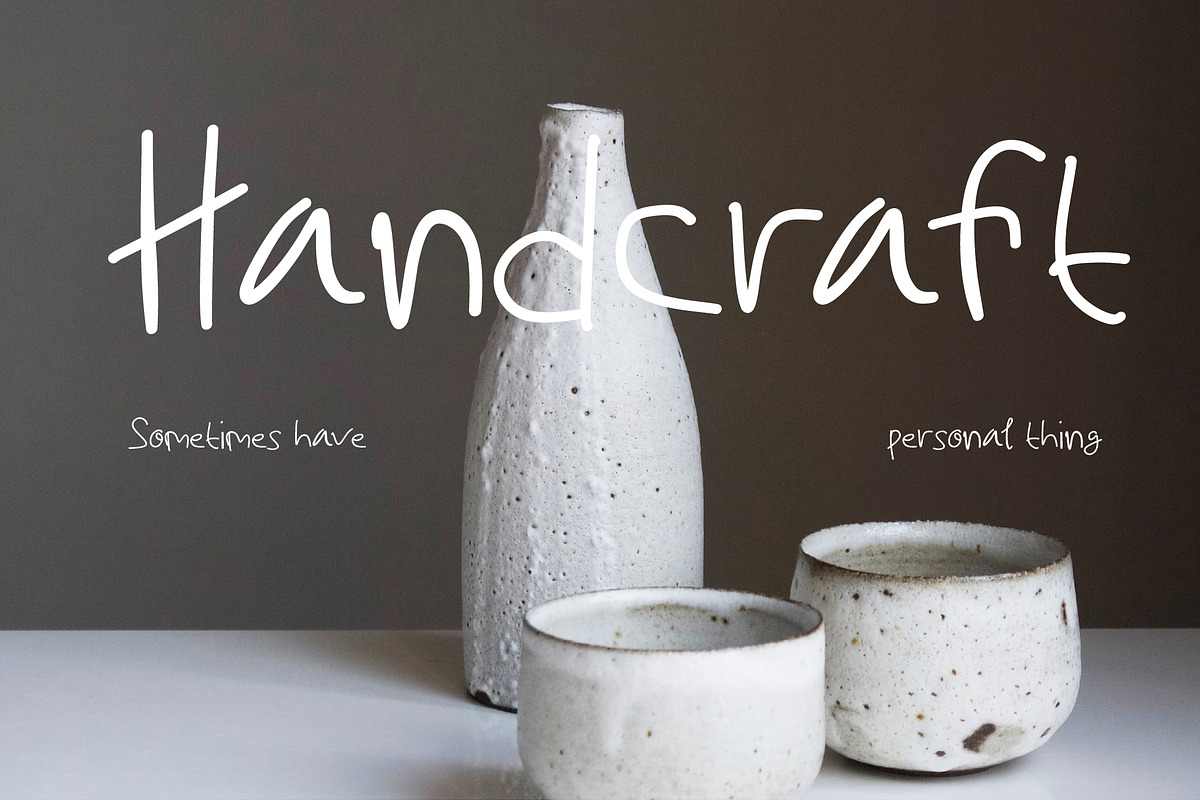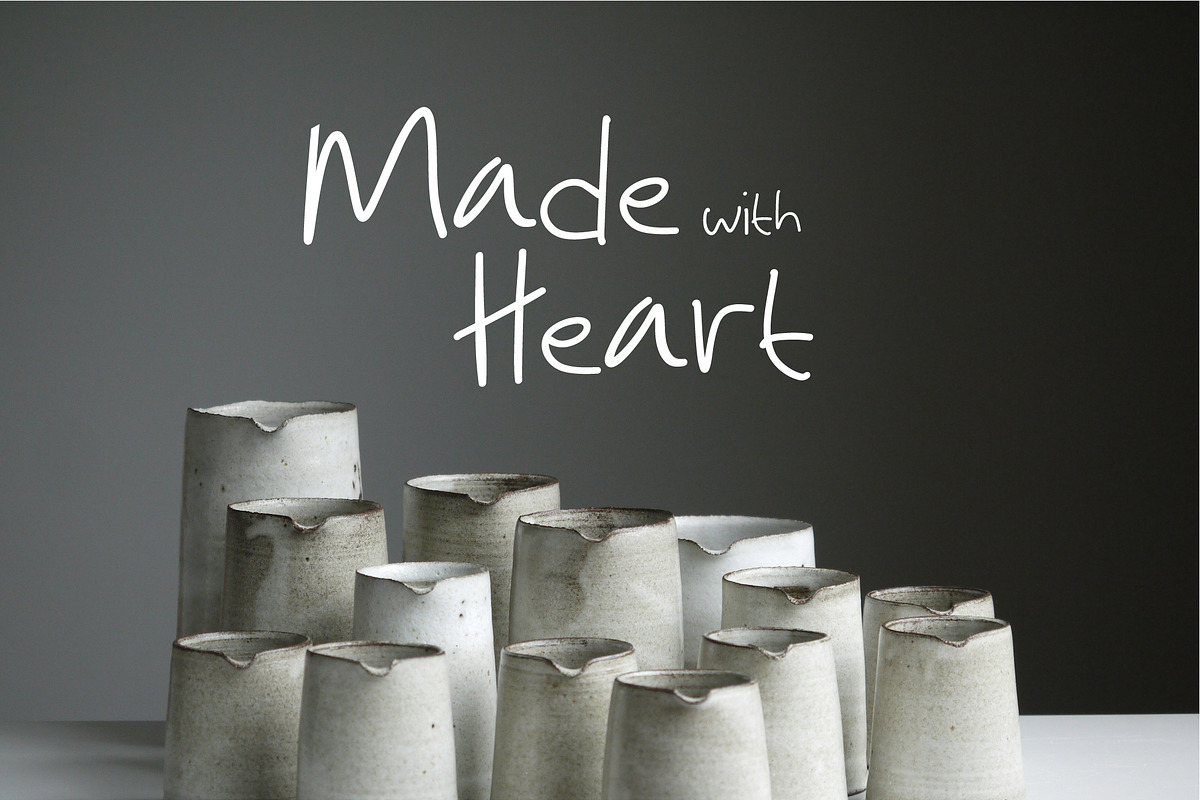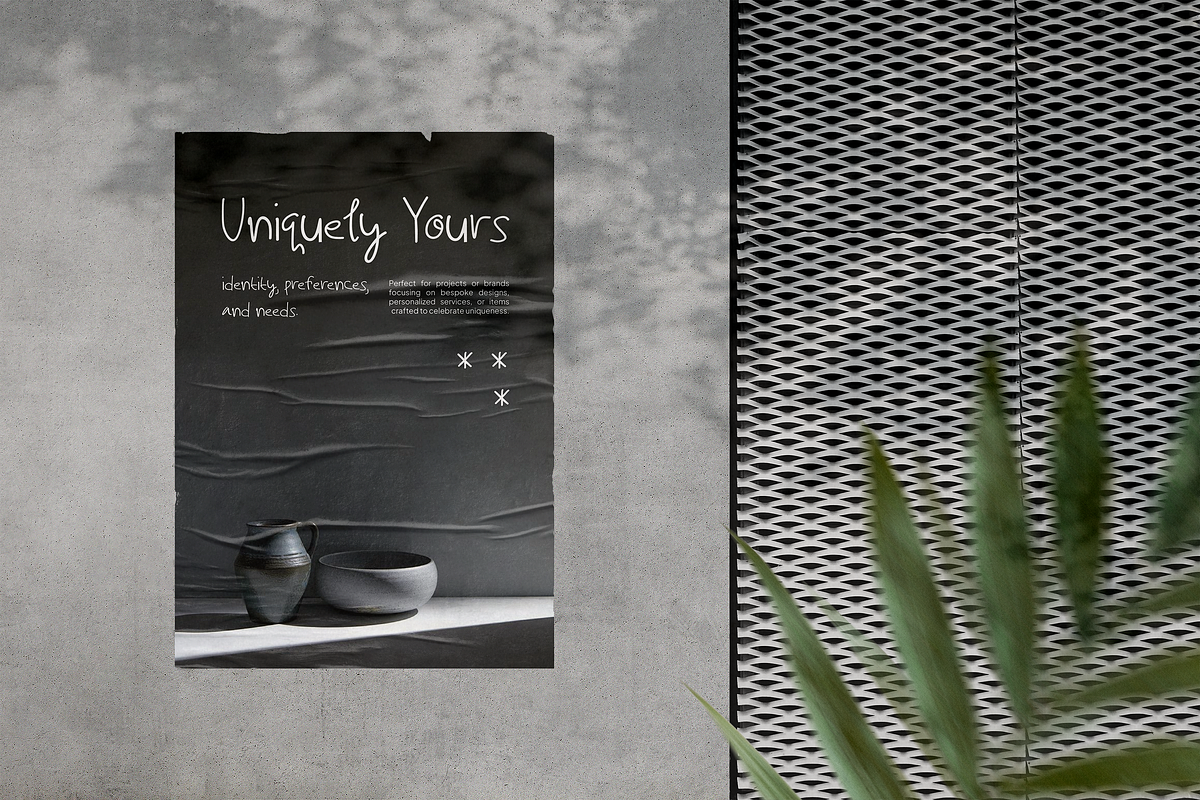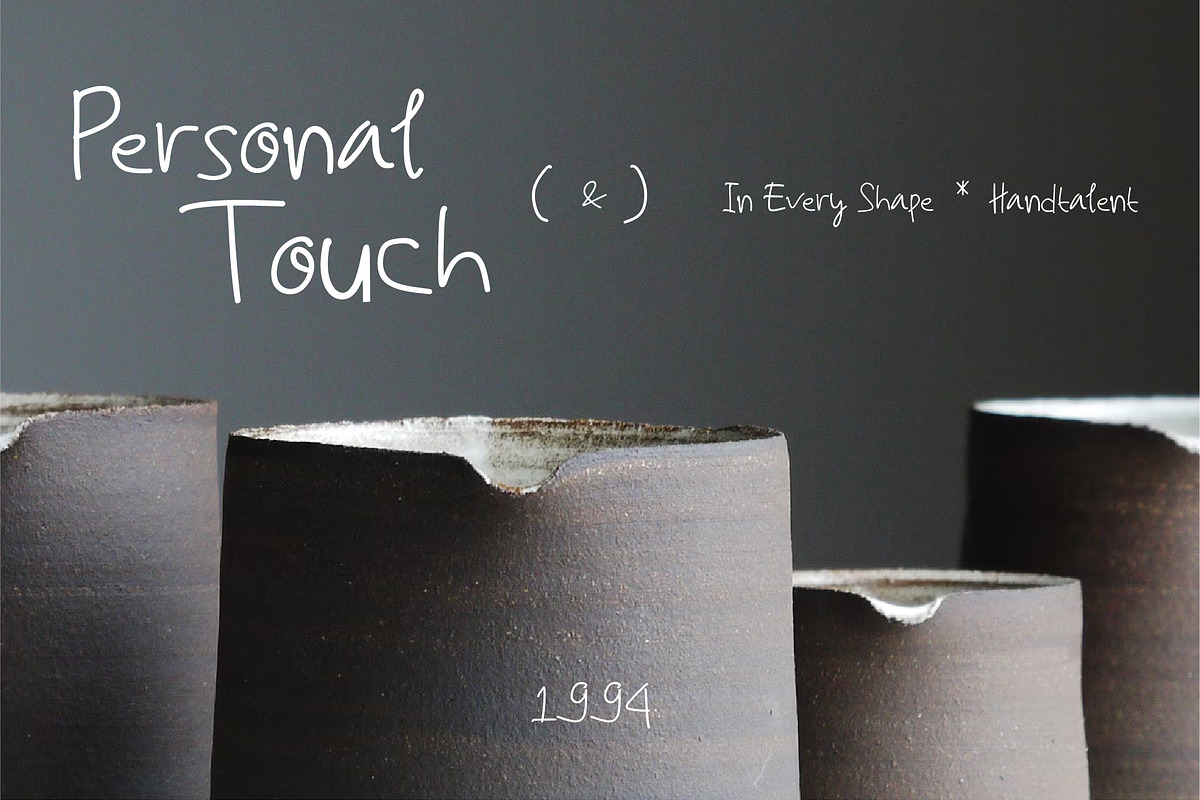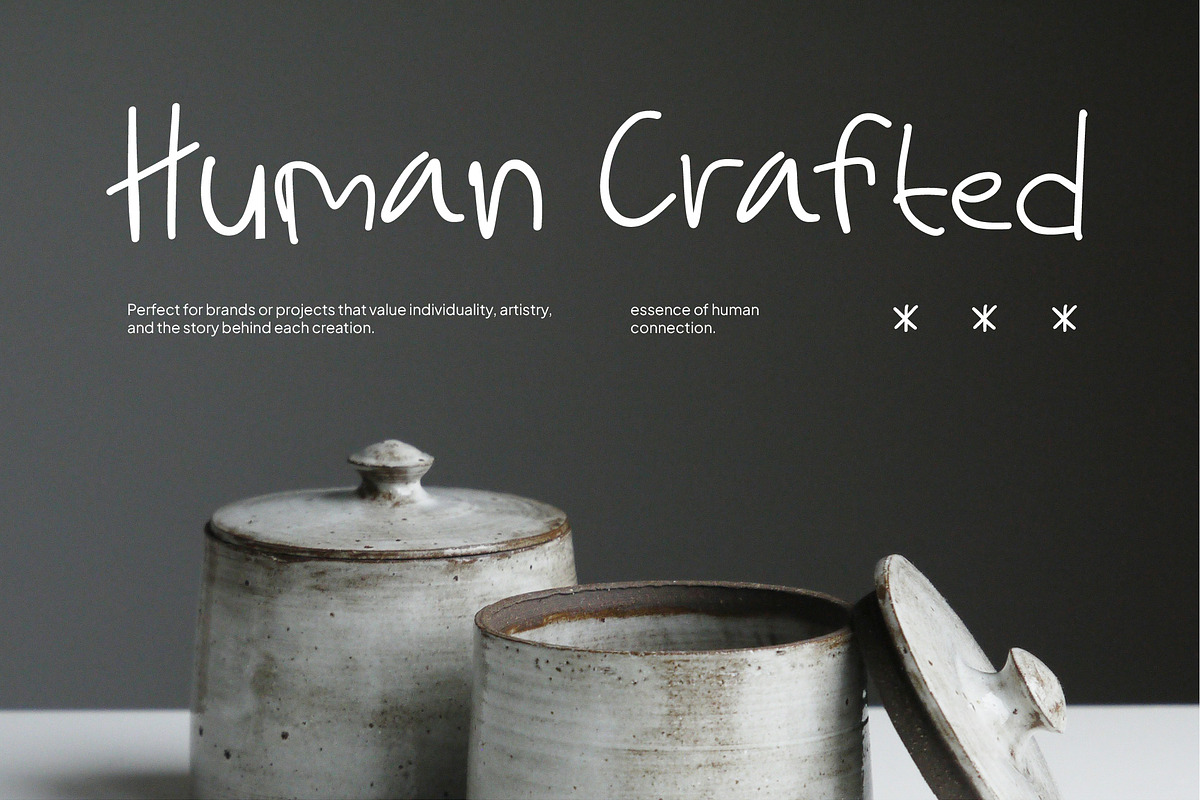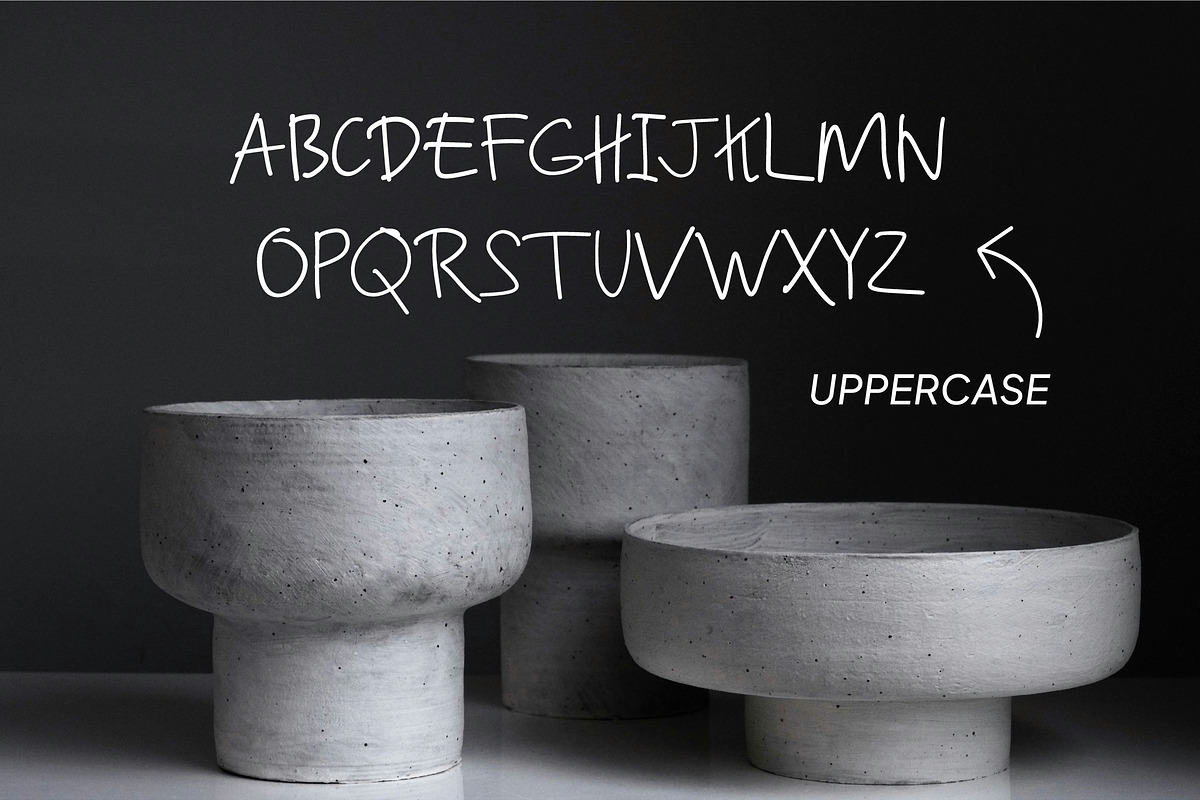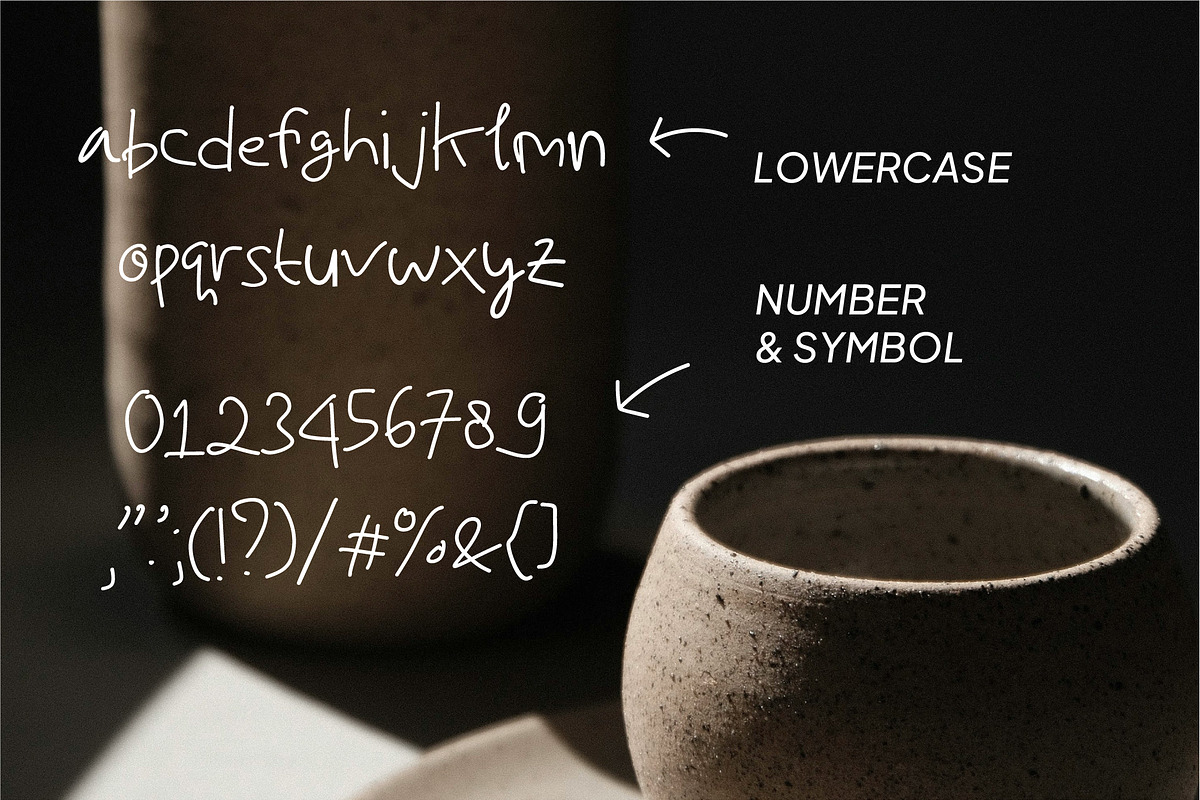
Hyne Handwritting
Hyne Handwritting Fonts with handwriting types with unique gestures and slightly random letters, customade or handmade characters on the product